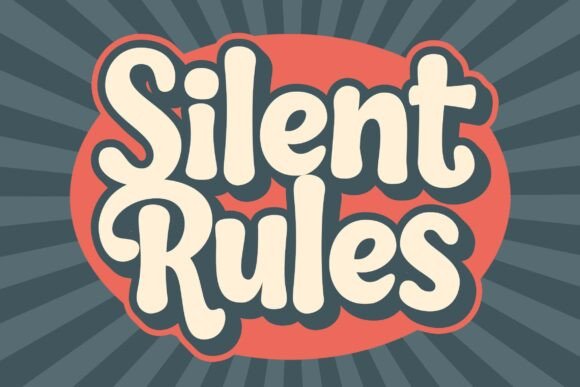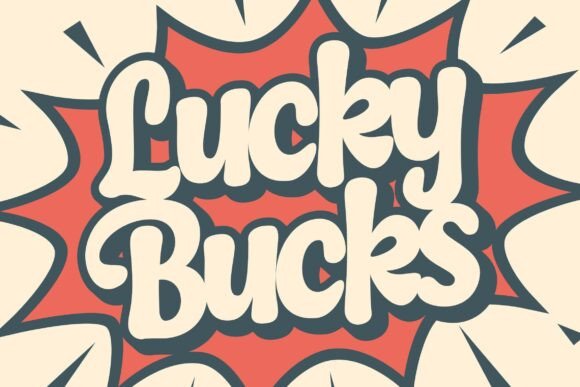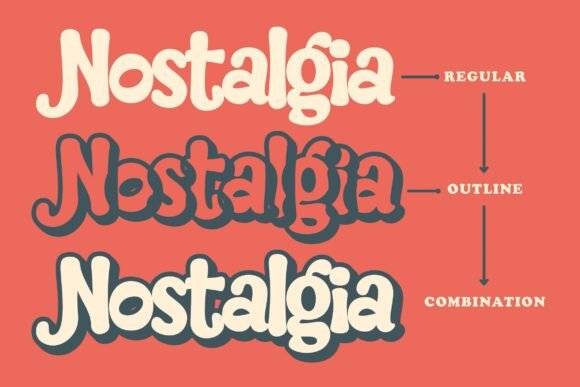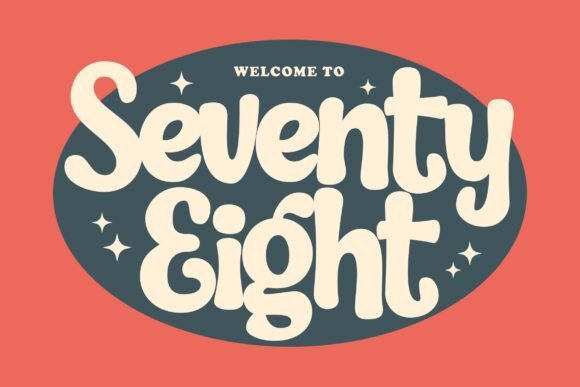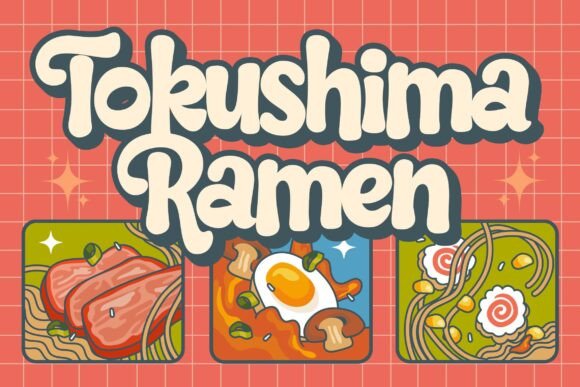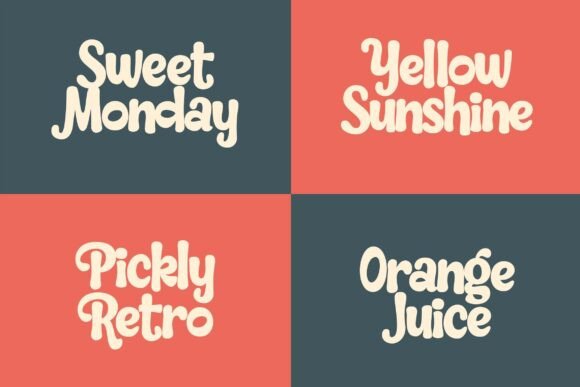
Introduction to Angel Winkle Font
Angel Winkle is a cute and quirky display font.
It will add an incredibly joyful touch to your designs Add this beautiful display font to each of your creative ideas and notice how it makes them stand out.